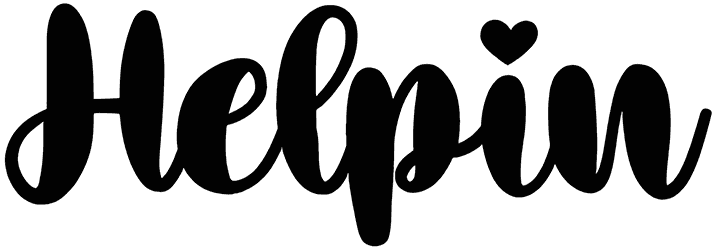
Helpin Font
Evoke the sense of love and artistry with a handwritten font and capture a lot of attention with your layout. The bulky and soft visual of this love font is going to add a charming vibe to your layout. Create a Valentine’s Day postcard, a birthday party invitation Instagram post, or the like with Helpin font, and enjoy the result.